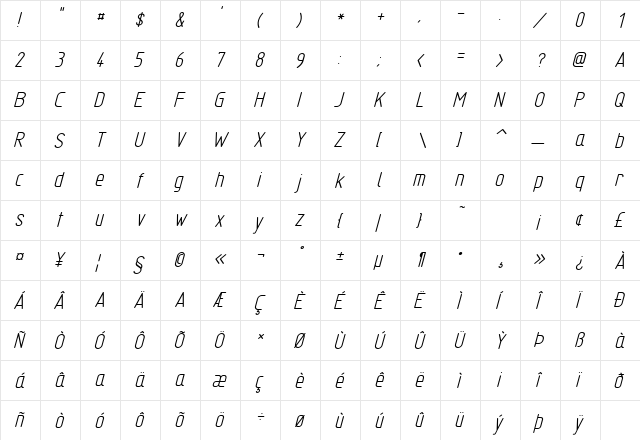
TGL 31034-2 Regular
| Foundry | Peter Wiegel |
| Designer | Peter Wiegel |
Design Context for TGL 31034-2 Typeface
TGL 31034-2 takes a measured approach to typography — its balanced proportions and neutral character make it a reliable workhorse for both digital and print work.